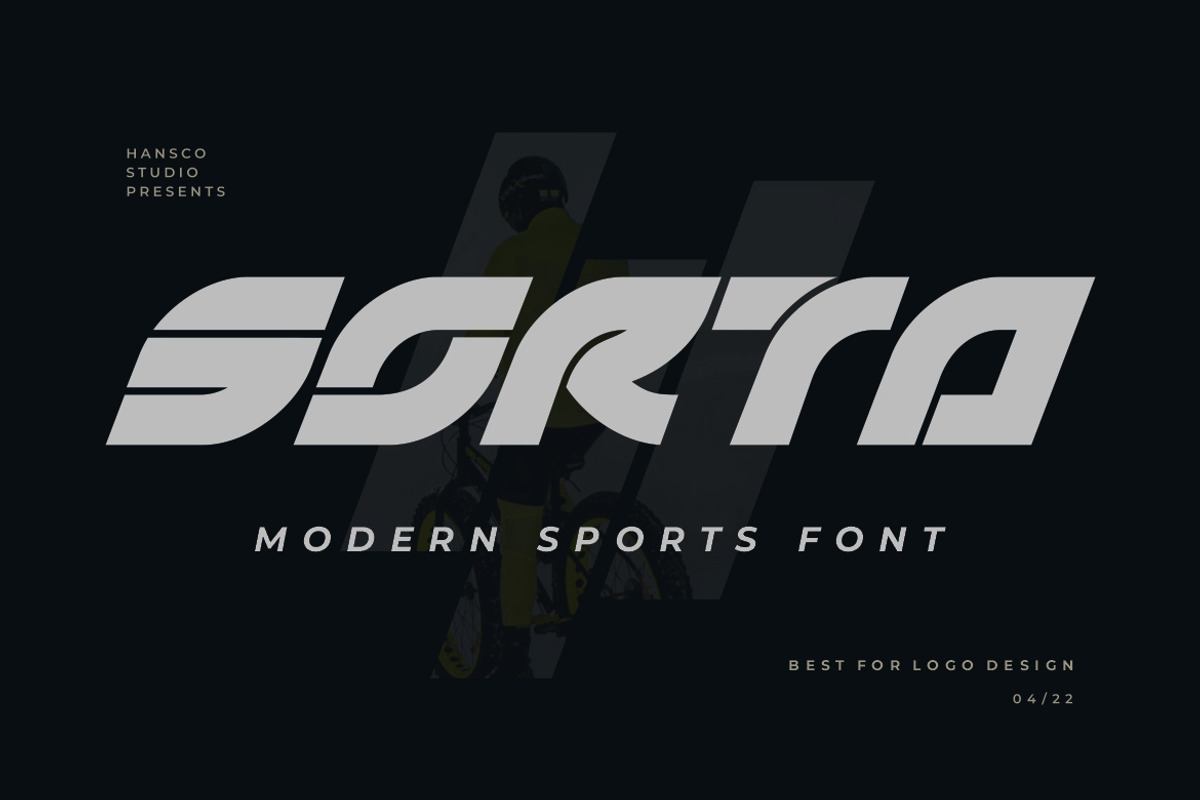
Sorta - Futuristic Font Free Download
Sorta – Futuristic Font Free Download is a cutting-edge typeface that blends sleek, modern design with a futuristic edge. Featuring sharp lines, geometric shapes, and an innovative feel, Sorta is perfect for tech branding, sci-fi posters, digital media, product packaging, and gaming graphics.
This font is ideal for projects that require a modern, high-tech appearance, bringing a sense of innovation and forward-thinking design to your typography. Whether you’re working on a tech startup logo, designing futuristic album artwork, or creating dynamic digital ads, Sorta enhances your visuals with a strong, contemporary aesthetic.